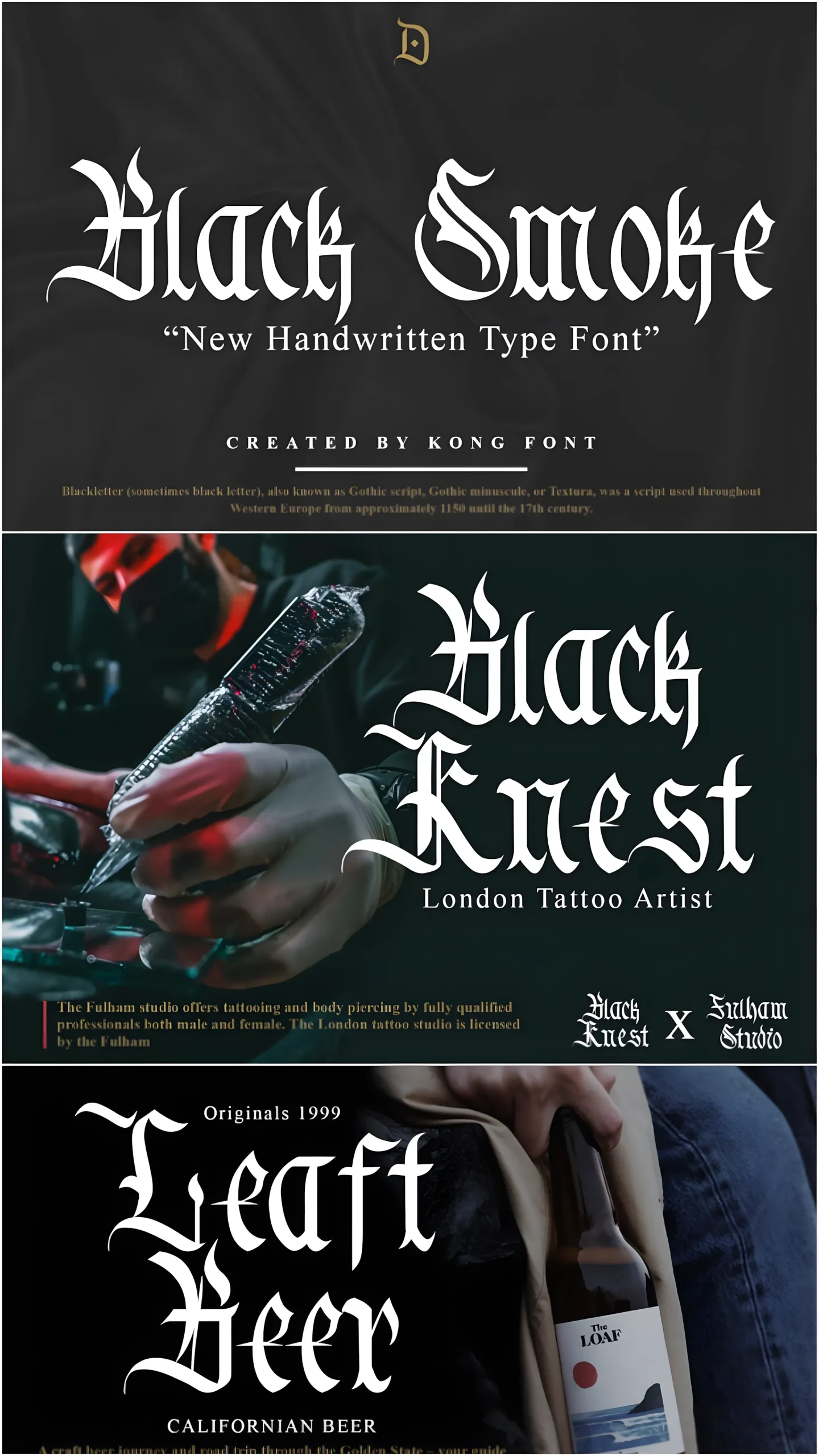
Some blackletter fonts focus on strict historical accuracy, while others lean into modern expression. Black Smoke Font finds a balance between both. It is a classic blackletter typeface with a handwritten feel, designed to look authentic, expressive, and versatile across a wide range of creative projects.
This font keeps the recognizable gothic structure but softens it with natural stroke flow. The result is typography that feels traditional without becoming rigid or overly formal.
Visual Style and First Impression
Black Smoke Font delivers a strong yet controlled first impression. The letterforms are rooted in blackletter tradition, featuring sharp angles, vertical emphasis, and distinctive gothic shapes. At the same time, the strokes feel slightly organic, giving the font a handwritten character rather than a mechanical or overly polished look.
This balance makes the font approachable. It feels classic, but not intimidating. Decorative details are present, yet restrained, allowing the letters to remain readable and clean even in longer words or lines.
The overall impression is timeless, elegant, and confidently crafted.
A Handwritten Take on Classic Blackletter
What sets Black Smoke Font apart is its handwritten quality. Instead of perfect symmetry, the letters show subtle variations that add warmth and personality. This makes the font feel more human and less rigid than many traditional blackletter typefaces.
The font includes:
- uppercase and lowercase letters
- numbers
- punctuation
This complete character set makes it suitable for both decorative headlines and more structured text elements.
Designed for Versatile Creative Use
Black Smoke Font was created with flexibility in mind. It works well in both decorative and functional contexts, making it suitable for a wide variety of design projects.
It naturally fits themes such as:
- classic and vintage design
- gothic and medieval inspiration
- editorial and print layouts
- formal yet expressive branding
Because of its balanced style, the font does not feel limited to one niche.
Practical Design Applications
Editorial Design and Print Media
Black Smoke Font performs well in editorial contexts. Magazines, newspapers, and printed publications benefit from its clarity and classic tone.
It works especially well for:
- article titles
- section headers
- feature headlines
The font adds character without overwhelming the layout, which is essential in text-focused designs.
Posters, Advertisements, and Promotions
In promotional materials, Black Smoke Font provides a strong visual anchor. It works well for:
- posters
- advertisements
- promotional banners
The blackletter style draws attention, while the handwritten touch keeps it from feeling too rigid or old-fashioned.
Branding and Business Materials
Black Smoke Font can also be used in branding projects that aim to feel established and trustworthy. It fits naturally into:
- business reports
- corporate design
- formal branding
- product labels
The font communicates seriousness and tradition, making it suitable for brands that value heritage and professionalism.
Craft and Cutting Machine Projects
The clean outlines of Black Smoke Font make it compatible with cutting machines such as Cricut and Silhouette. This allows it to be used for:
- vinyl lettering
- decals
- signage
- craft projects
The characters cut cleanly and remain recognizable even in single-color applications.
Readability and Usage Notes
Black Smoke Font is a display blackletter typeface, but its controlled structure allows for better readability than many fonts in this category.
It works best in:
- titles
- headlines
- short to medium-length text
For long paragraphs, pairing it with a simpler serif or sans-serif font helps maintain visual comfort. Adequate spacing between letters also improves clarity, especially at smaller sizes.
Digital, Print, and Web Compatibility
The font works across major operating systems, including Windows, macOS, and Linux. It integrates smoothly with common design software and can be converted into a webfont for online use.
Black Smoke Font performs reliably in:
- digital graphics
- print layouts
- web visuals
This makes it suitable for both traditional print design and modern digital projects.
Emotional Tone and Design Feel
The emotional tone of Black Smoke Font is classic, composed, and confident. It feels serious without being aggressive and traditional without feeling outdated.
This makes it suitable for designs that aim to communicate:
- authority
- tradition
- craftsmanship
- reliability
The handwritten influence adds subtle warmth, preventing the font from feeling cold or distant.
It is not intended for casual body text, but as a display blackletter font, it offers clarity and elegance.
Black Smoke Font delivers a refined take on blackletter typography. By combining traditional gothic structure with a handwritten feel, it creates a typeface that is both expressive and practical.
For designers looking for a blackletter font that feels authentic, readable, and versatile, Black Smoke Font offers a strong solution. Used thoughtfully, it brings tradition, character, and quiet confidence to a wide range of creative projects.